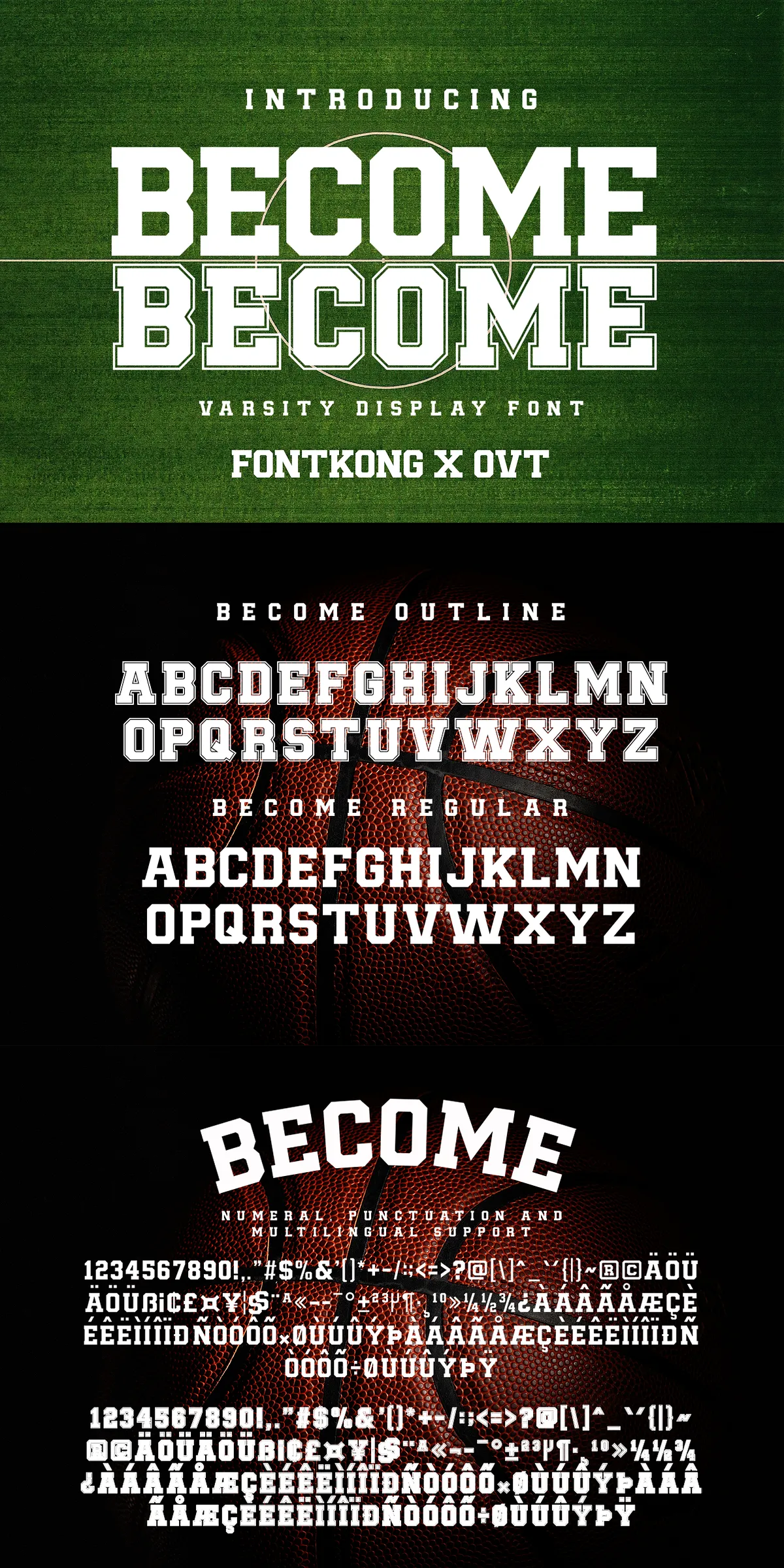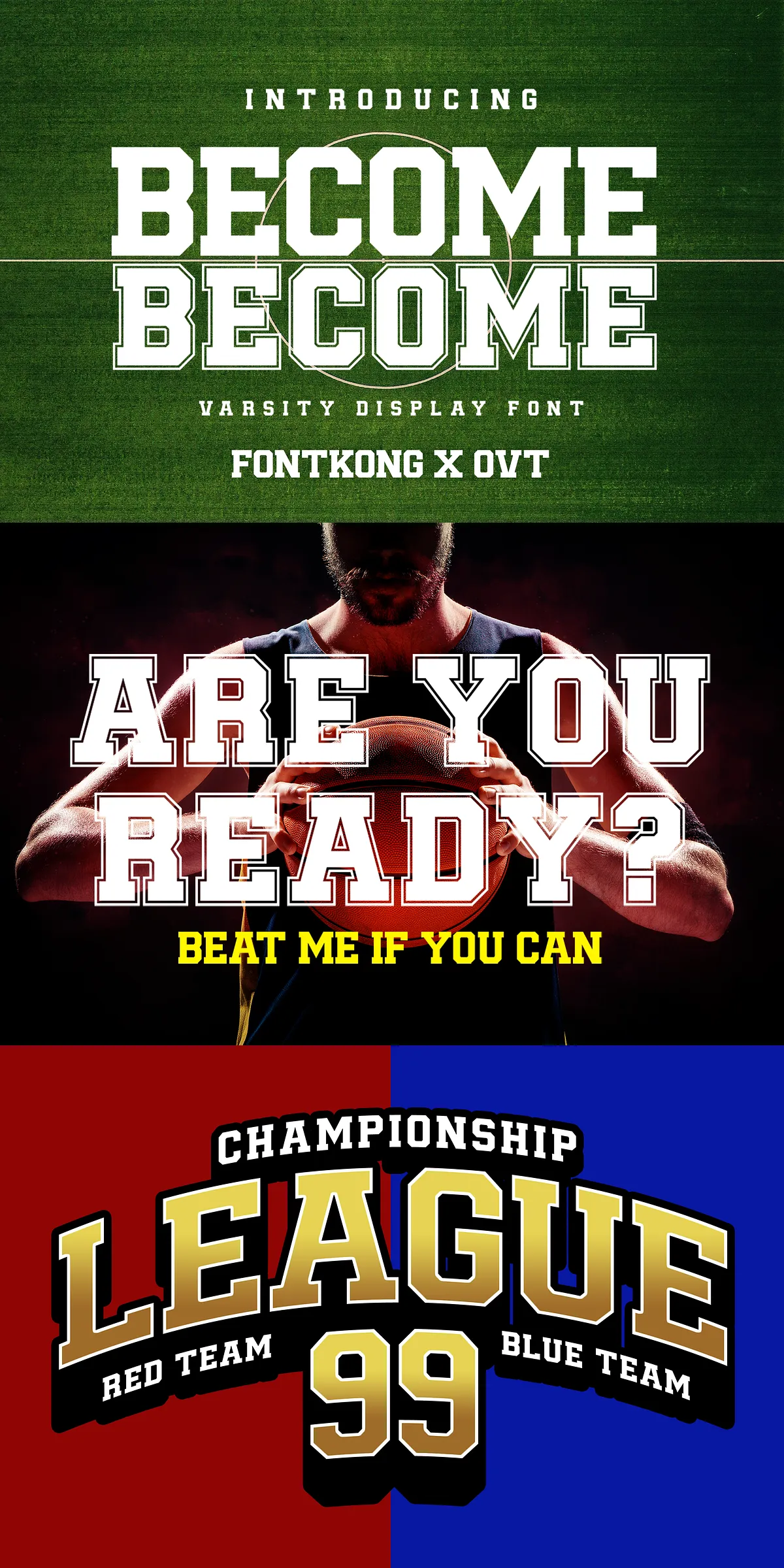
Step into the spotlight with Become — a high-octane, vintage varsity display font that brings the unshakable spirit of classic athletic lettering straight into your design projects. Designed for boldness, precision, and nostalgia, this font doesn’t just spell words — it shouts them with power, pride, and heritage. Whether you’re branding a new sports team, designing game-day posters, or creating merch that celebrates school spirit, Become delivers the kind of impact that stops viewers in their tracks.
Born for Impact: The Power of Vintage Athletic Design
From locker rooms to stadiums, the legacy of varsity-style typography runs deep. Become channels that legacy with razor-sharp strokes, thick serifs, and letterforms inspired by mid-20th-century college teams and athletic clubs. Every character is meticulously crafted to convey strength, tradition, and unyielding confidence. Thick, confident lines make your headlines impossible to ignore. Slightly exaggerated angles and tight spacing give it a dynamic, energetic feel that energizes any design.
No more generic templates. With Become, your messages don’t just communicate — they command respect, just like a champion on the field.
Full-Feature Versatility for Every Creative Task
Become isn’t just a pretty face — it’s a complete typography solution. The font includes:
- Full Uppercase Alphabet — Bold, uniform letterforms perfect for team names, slogans, and taglines.
- Numbers & Punctuation — Clean and consistent with the overall style, ensuring your stats, scores, and dates look just as strong as your headlines.
- Special Characters & Symbols — Including em dashes, ellipses, and decorative marks that enhance editorial layouts and branding materials.
Ideal for Sports Branding, Events, and Merchandising
Become thrives in environments where energy, emotion, and identity intersect. It’s engineered for:
- Sports Team Logos: Build a strong visual identity that stands out in a crowded market. Whether for high school, college, or professional leagues, Become gives your team a look that’s instantly recognizable.
- Event Posters & Flyers: Draw crowds with bold, eye-catching headlines that convey excitement and urgency.
- Apparel & Merchandise: Turn jerseys, hats, and T-shirts into wearable statements of team pride and legacy.
- School Spirit Campaigns: Fuel excitement with yearbooks, banners, and student publications that reflect the heart of the campus.
- Branding & Packaging: Add a retro athletic edge to product labels, sports equipment, or promotional materials.
Style That Speaks Loyalty, Confidence, and Legacy
Typography isn’t just about readability — it’s about emotion. Become isn’t just a font. It’s a mood. A statement. A call to action. It makes your audience feel the pulse of the game, the roar of the crowd, the pride of tradition.
Use it for a championship-winning slogan. Use it to honor a legacy. Use it to launch a new chapter. Become doesn’t just match your vision — it amplifies it.